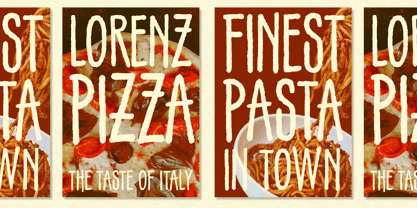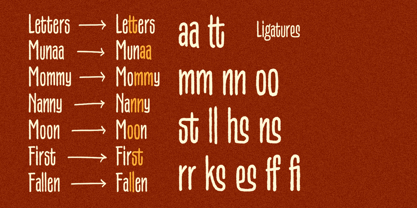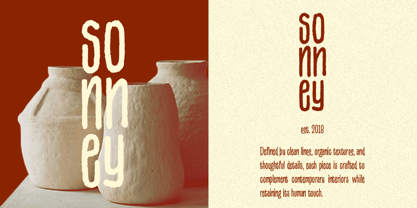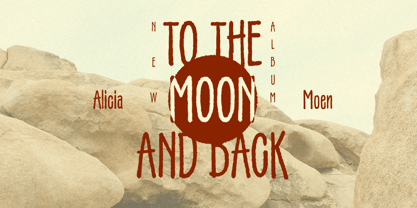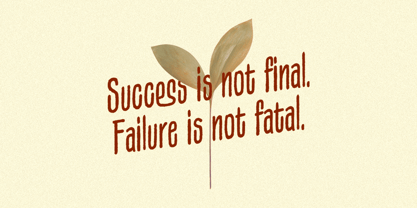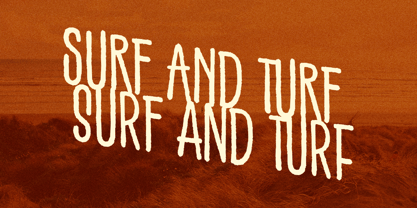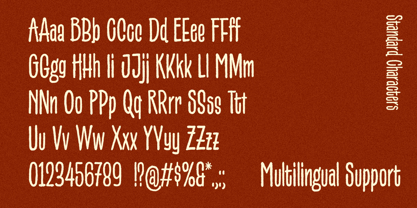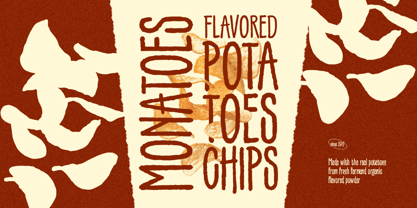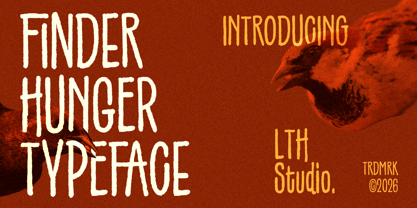
Finder Hunger
by Letterhend
The Finder Hunger Font Family was designed by Hendry Juanda and published by Letterhend. Finder Hunger contains 1 styles. More about this family
Finder Hunger is a tall handwritten display font with a natural, handcrafted feel and an easygoing personality. Its organic letterforms add warmth and character to posters, food branding, café menus, product packaging, and creative headlines, giving every design a relaxed yet eye-catching presence.
Features :
• Uppercase & lowercase
• Numbers and punctuation
• Alternates & Ligatures
• Multilingual Support